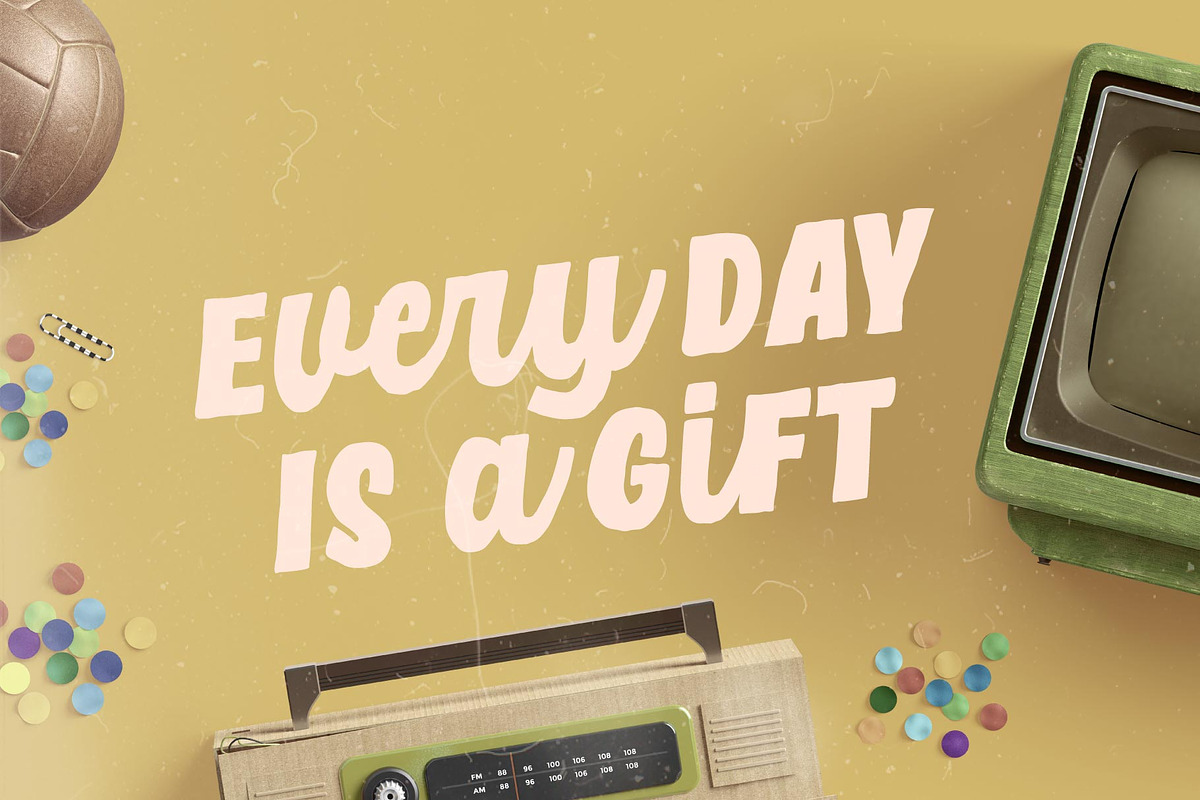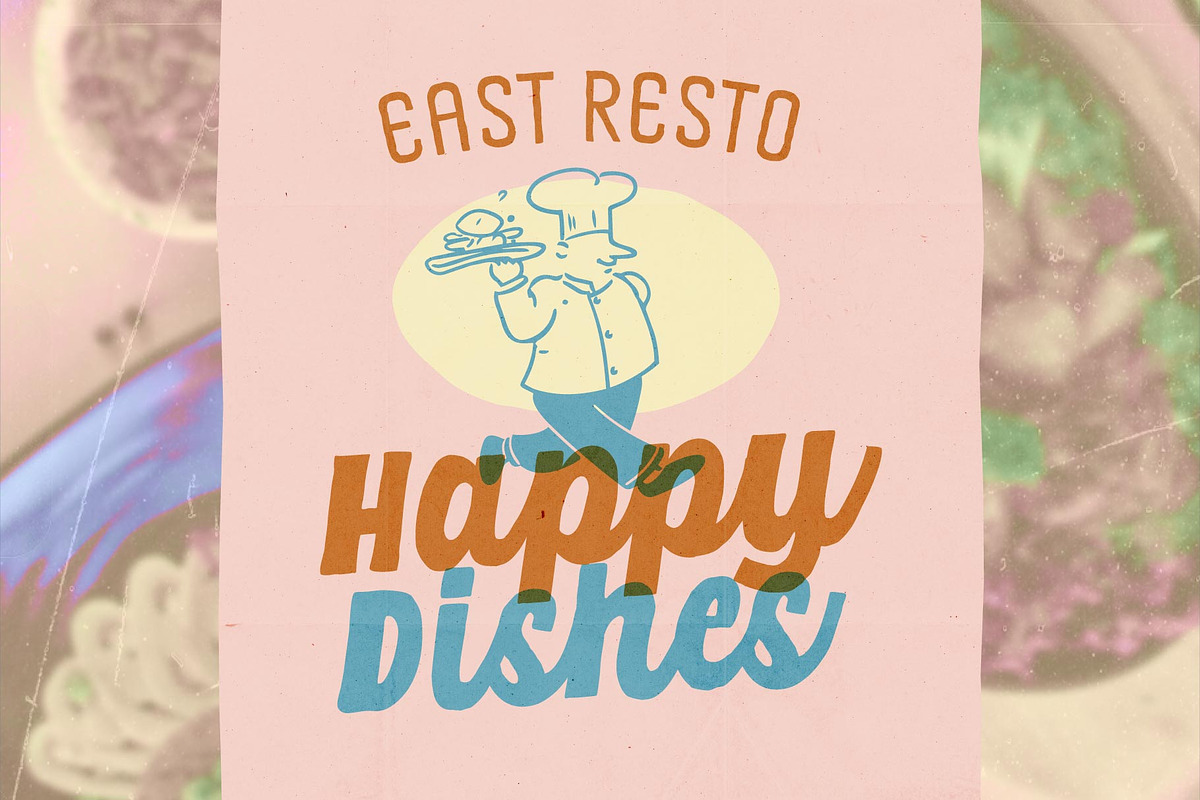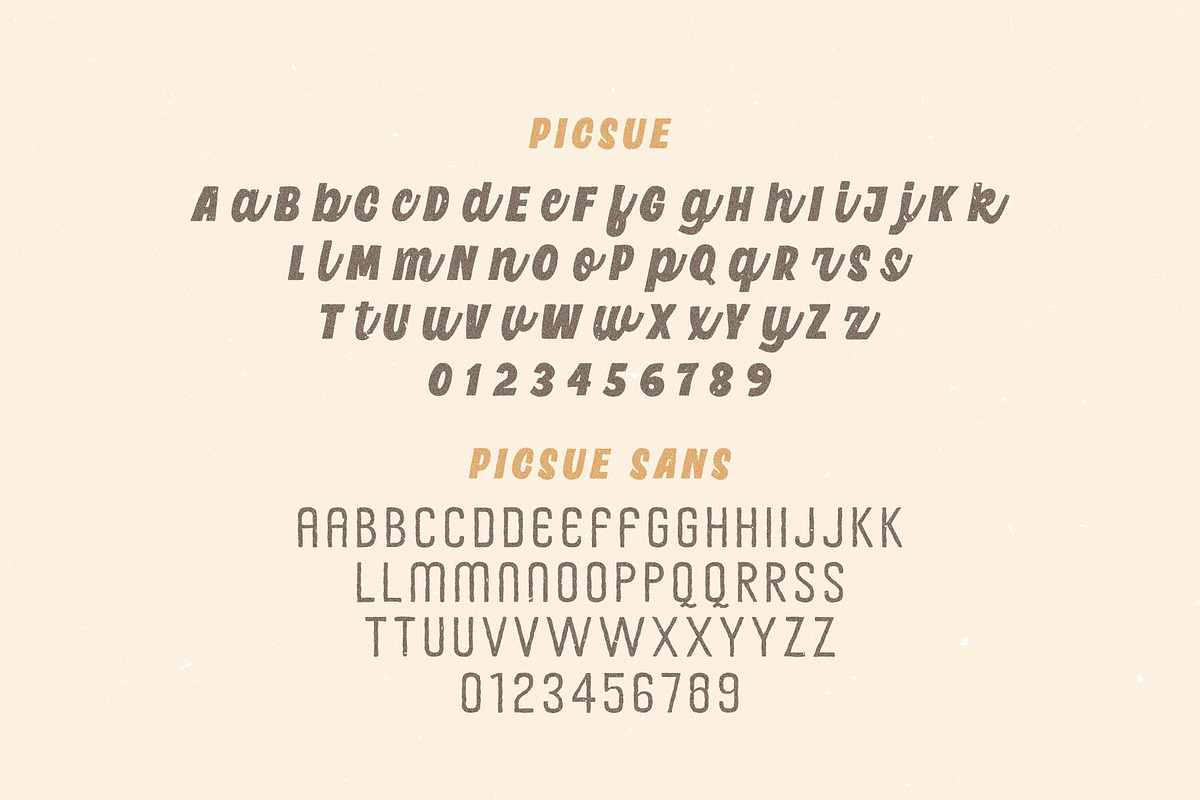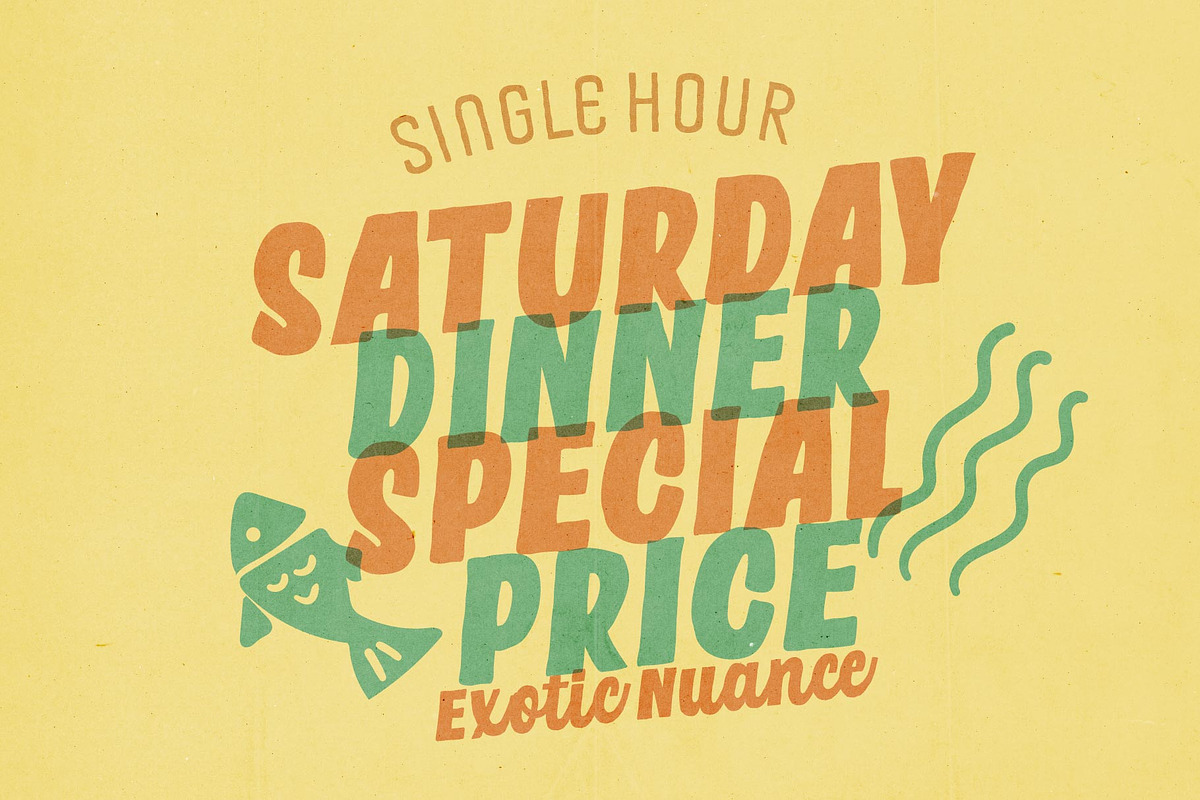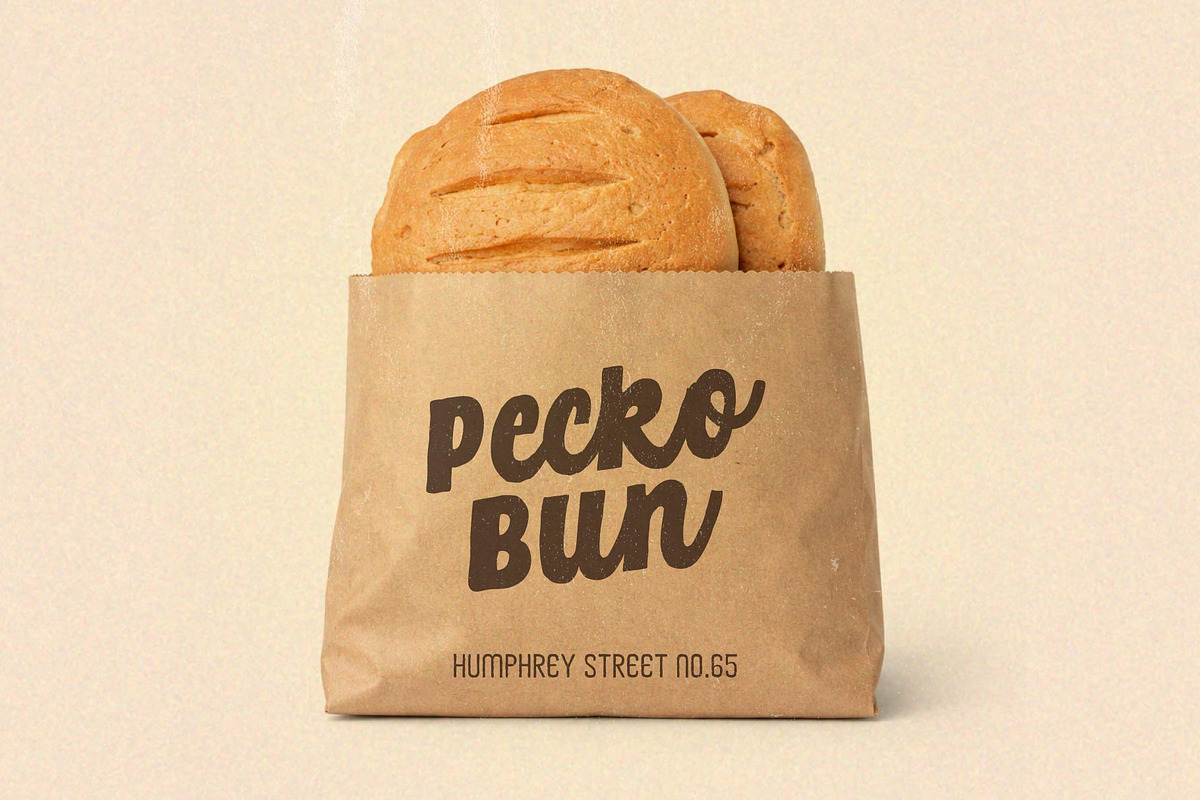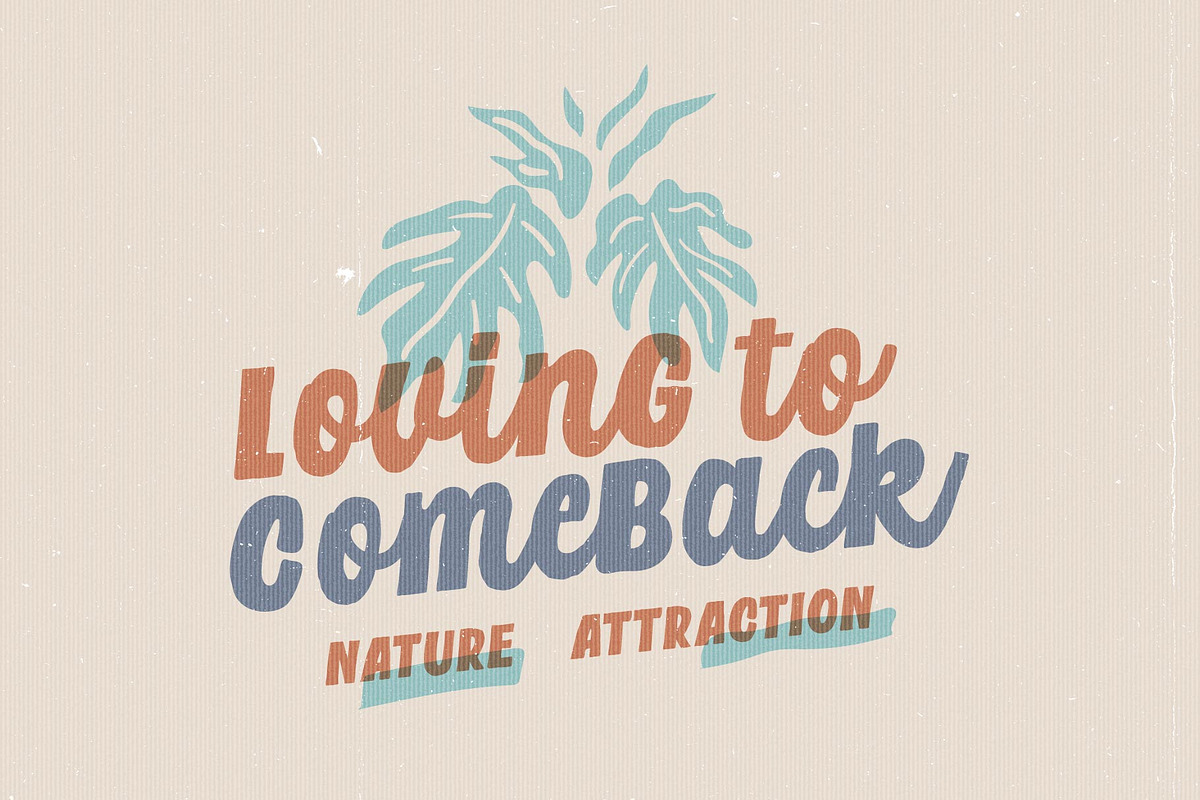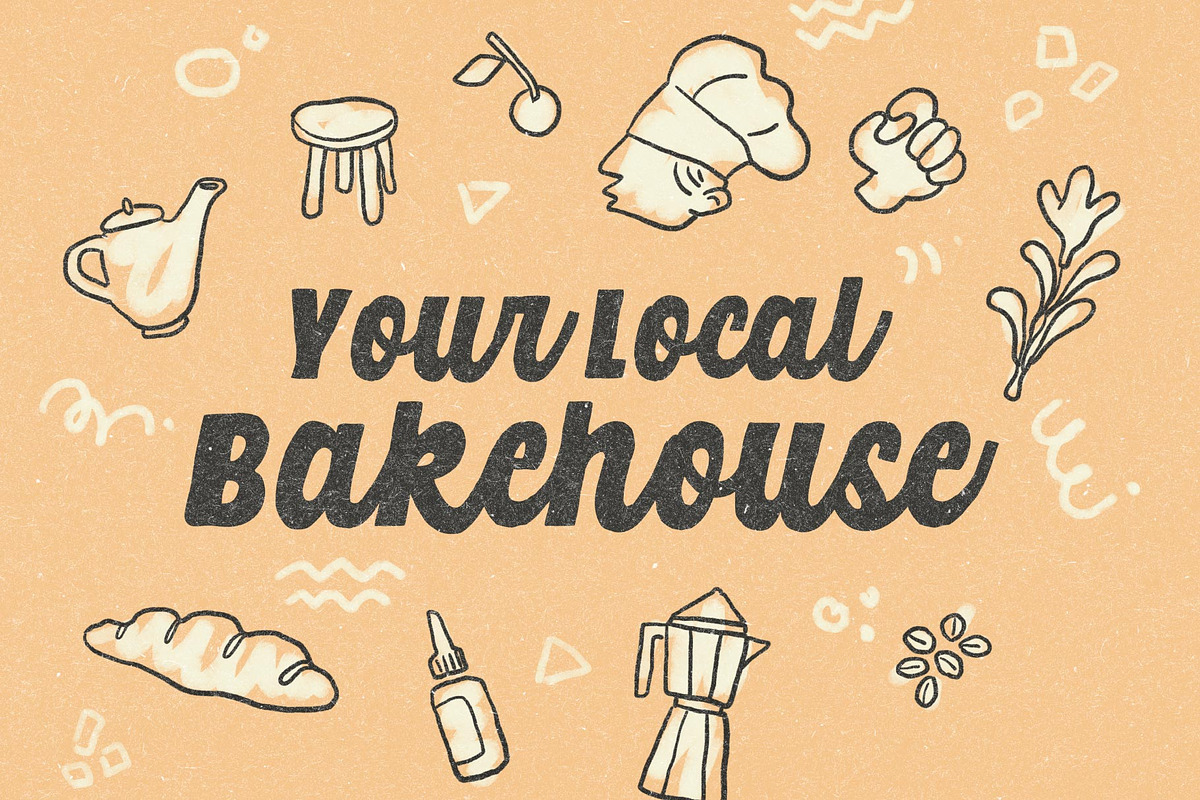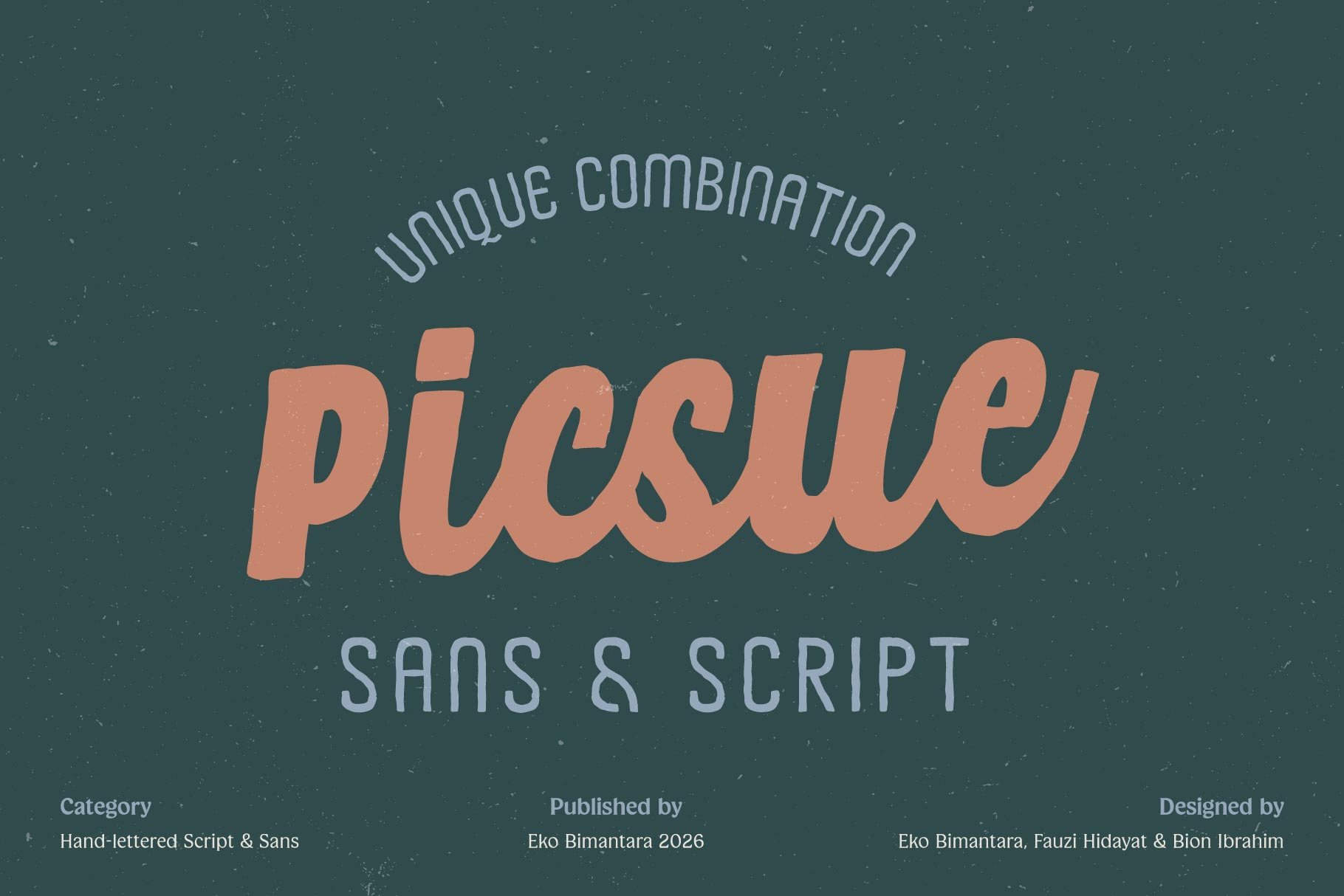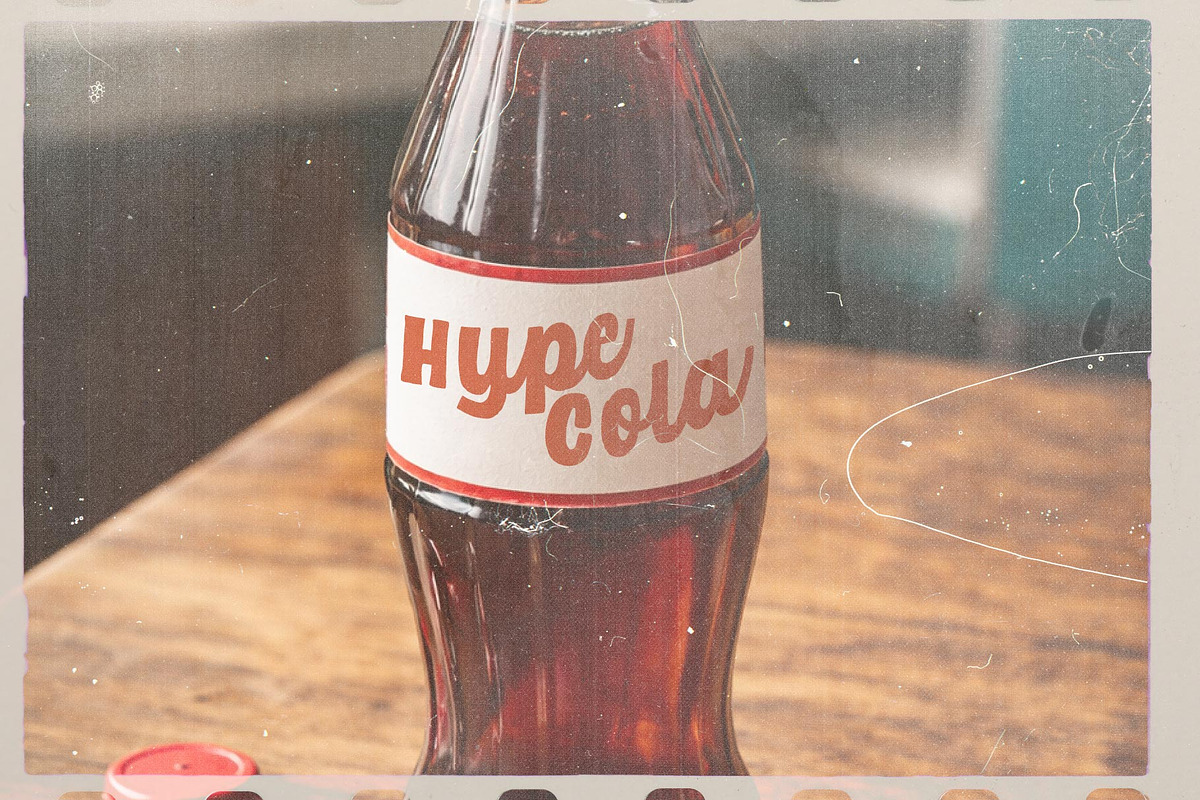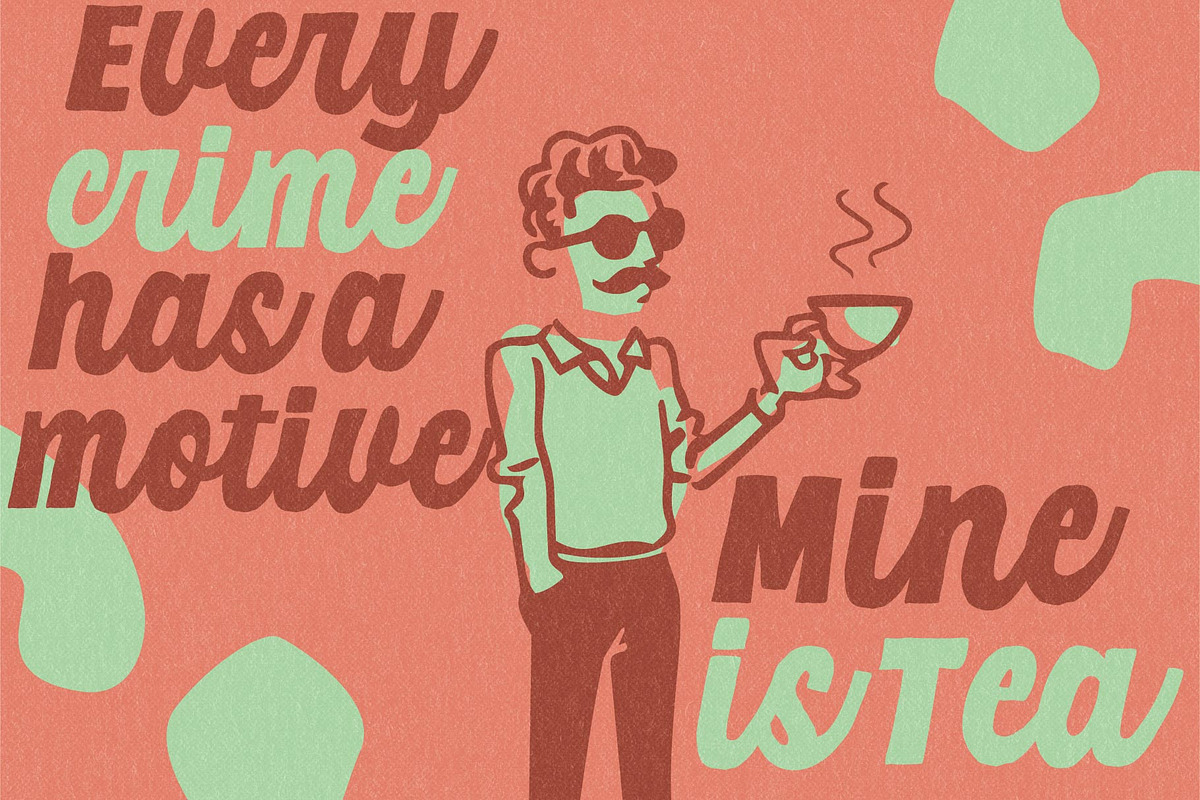
Picsue; Script and Sans Font Duo
Picsue is a bold font duo that combines a handlettered style display script with a condensed sans serif, designed to deliver good and unique combination for a vintage and retro design theme. The bold script style provides confident, fun, warm, eye-catching for headlines, while the condensed sans adds structure and balance for supporting alternative. Inspired by classic signage, retro prints, and risograph aesthetics, Picsue works especially well in nostalgic and tactile design styles. Ideal for display typography, posters, stickers, packaging, branding, and product designs.